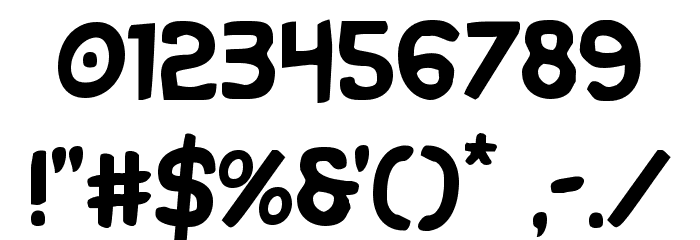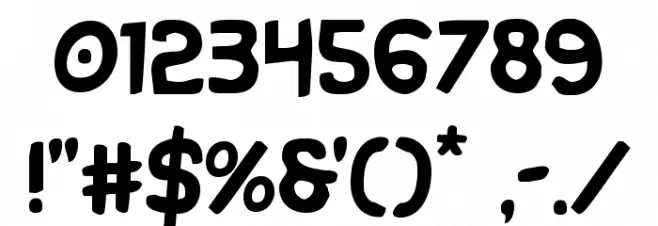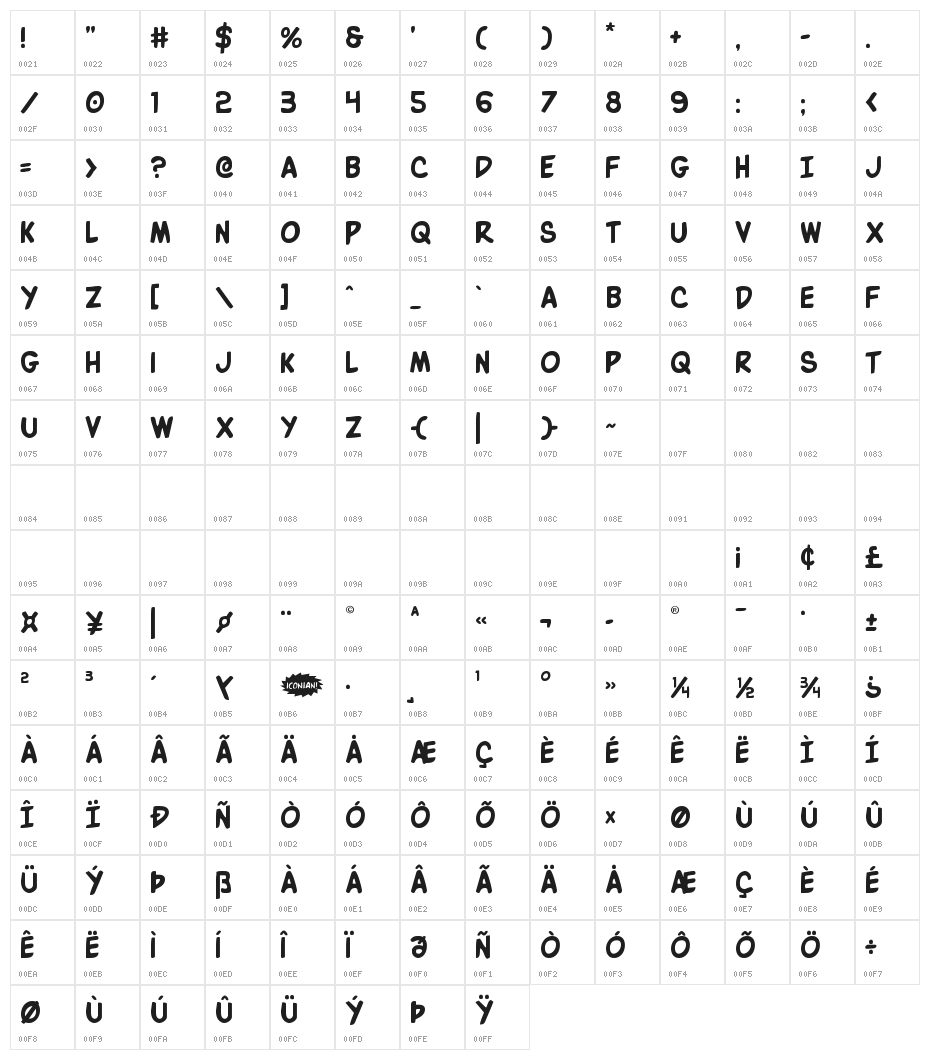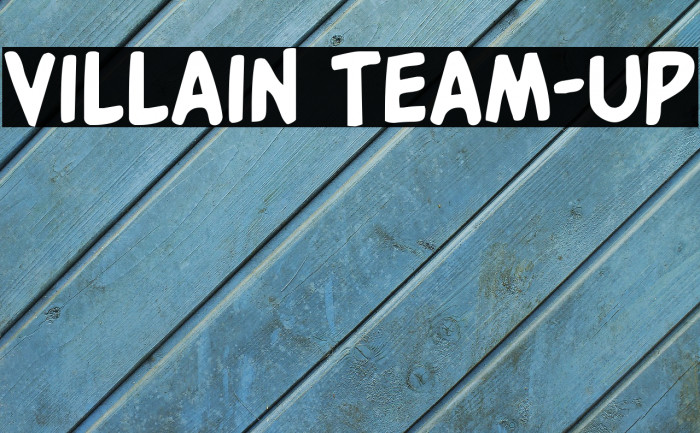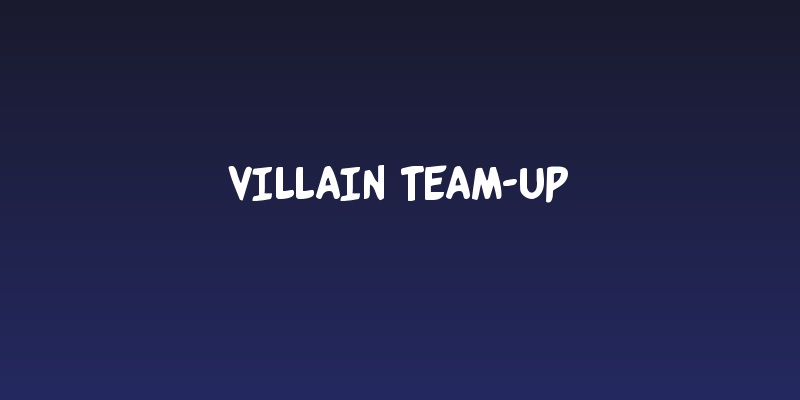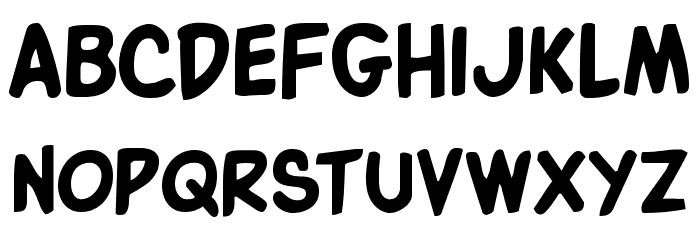
Villain Team-Up Font
Villain Team-Up Description
This font features a playful and bold style with rounded edges and a slightly irregular form, giving it a hand-drawn appearance. The characters are thick and substantial, making them highly legible and impactful. The uppercase and lowercase letters maintain a consistent weight, while the numbers and special characters complement the overall design with similar thickness and style. The font exudes a casual and friendly vibe, suitable for projects that require a touch of whimsy and approachability. Its boldness ensures that it stands out, making it ideal for attention-grabbing headlines or creative designs.
| Overall Style | Playful, Casual |
| Proposed Projects | Ideal for children's books, comic strips, playful branding, and eye-catching posters. |